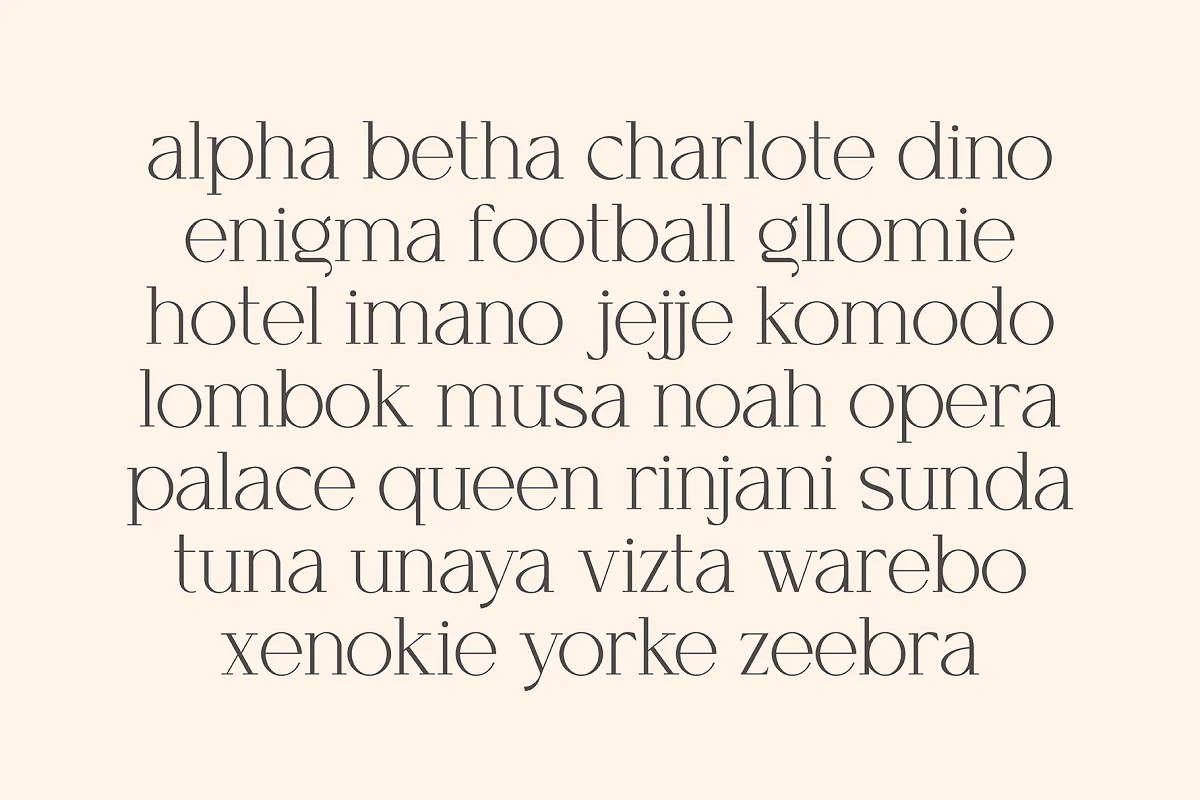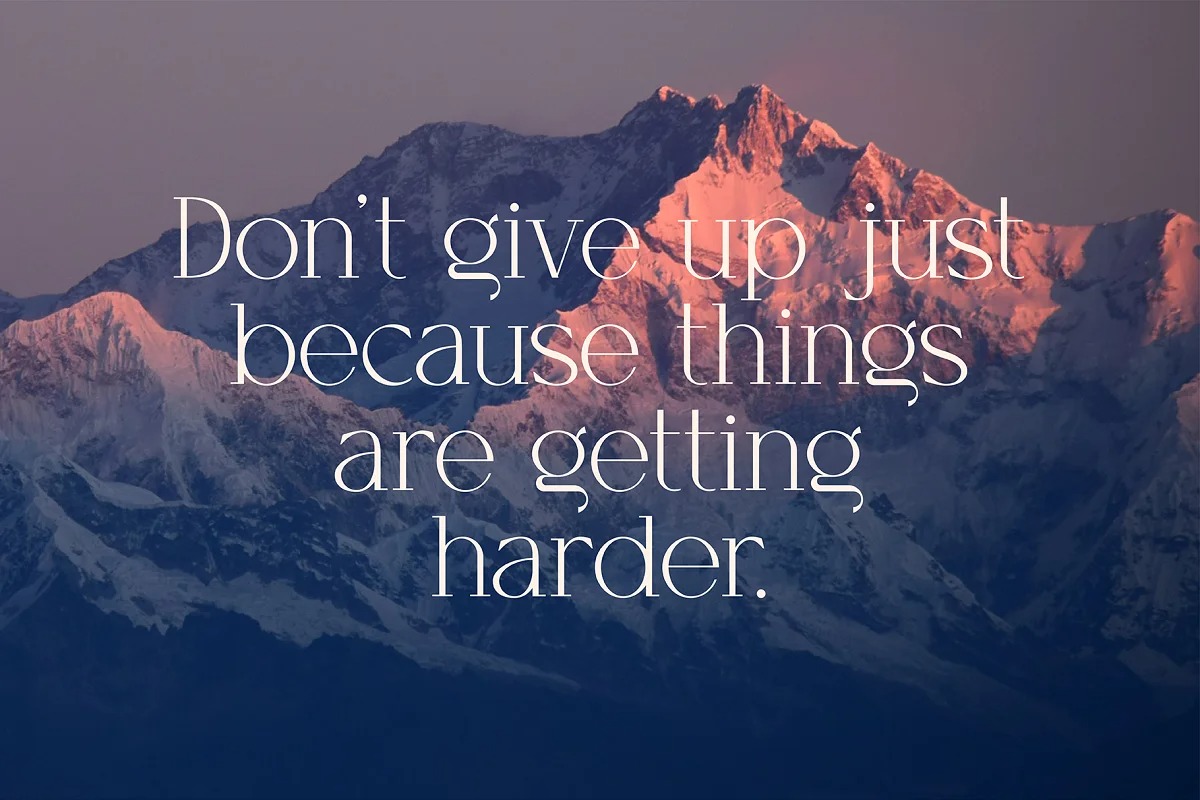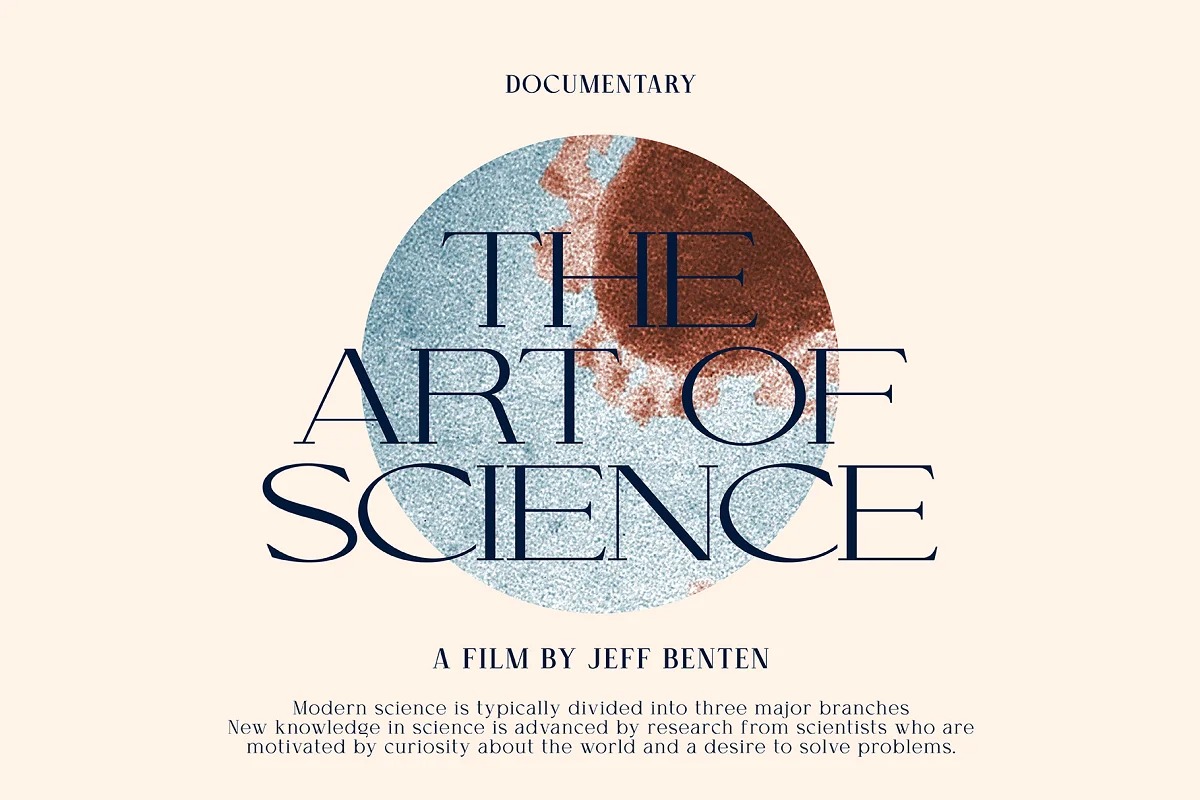
Cellofy Font Family
Cellofy Serif Font is a modern serif typeface created by OWL KING with a unique font, comes with clean contrasts that make this font look elegant and classy. This is to make it easier for designers to get many choices in a font family, aiming to make it easier to explore with many choices. congratulations on exploring various projects, hopefully, Cellofy can collaborate on your design.